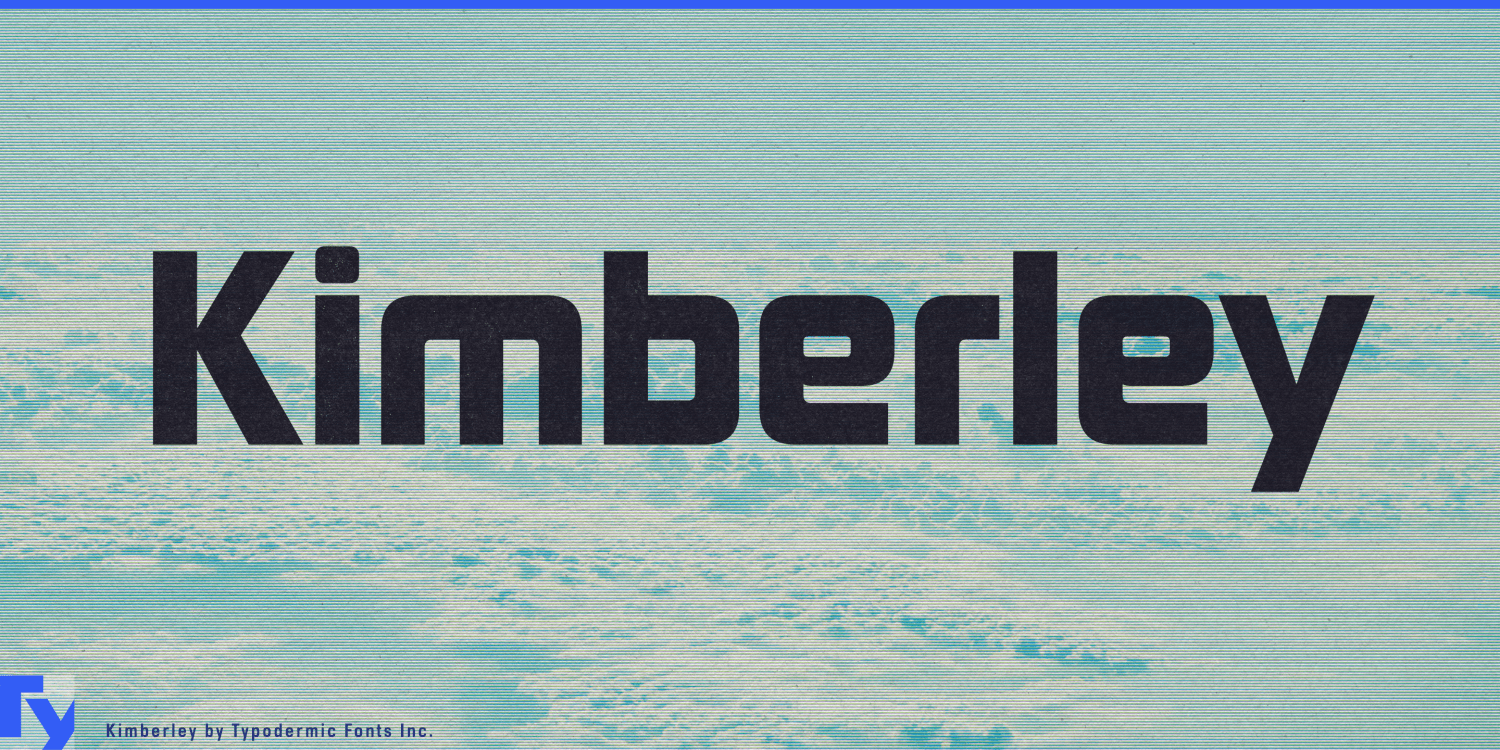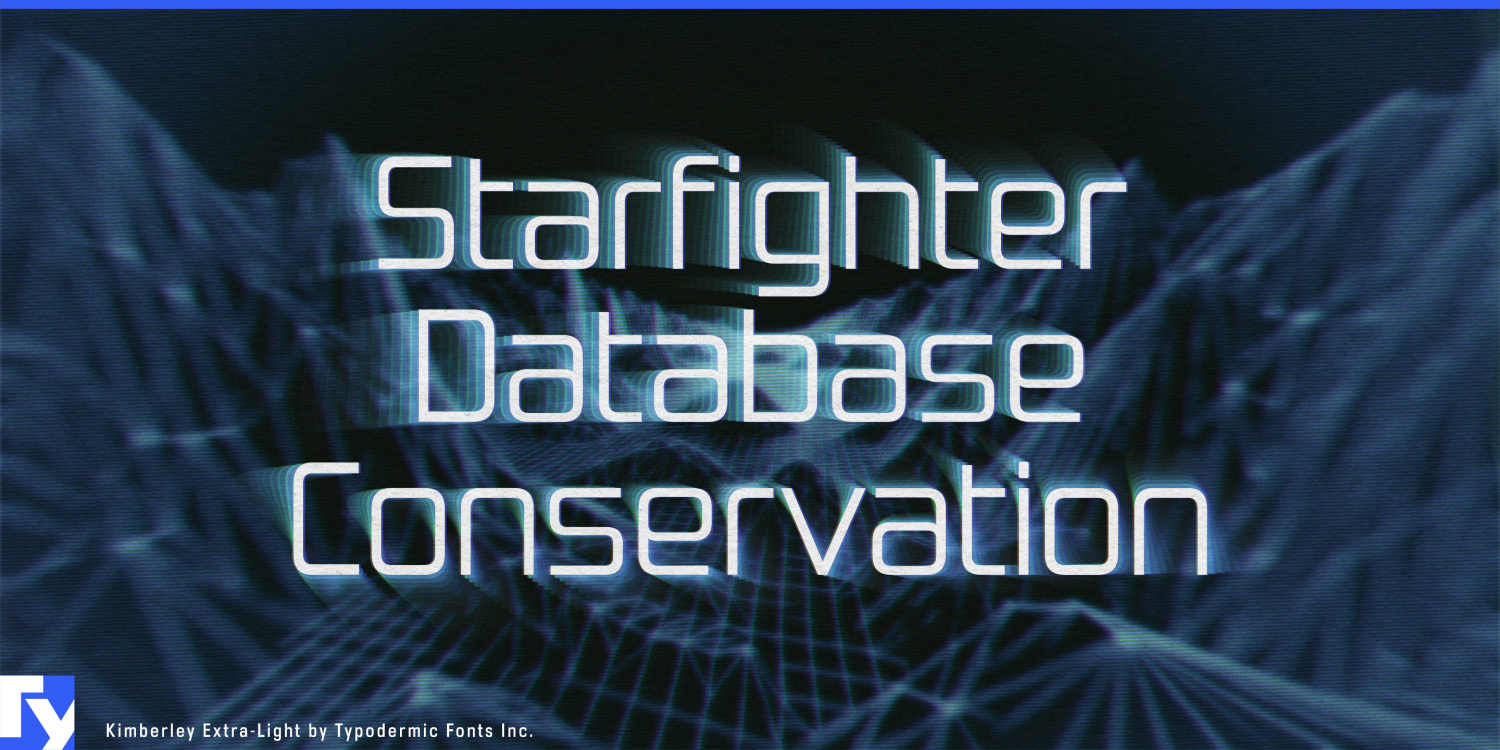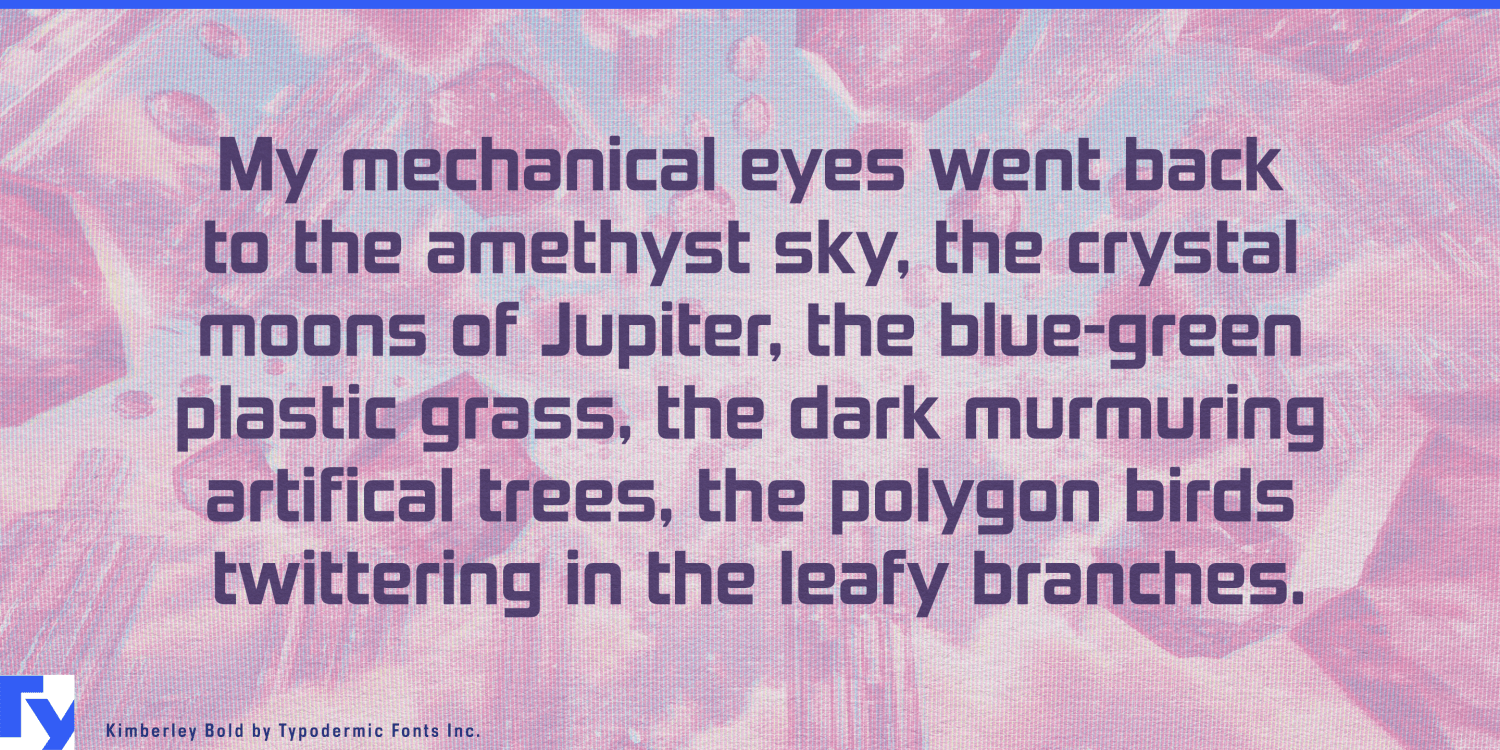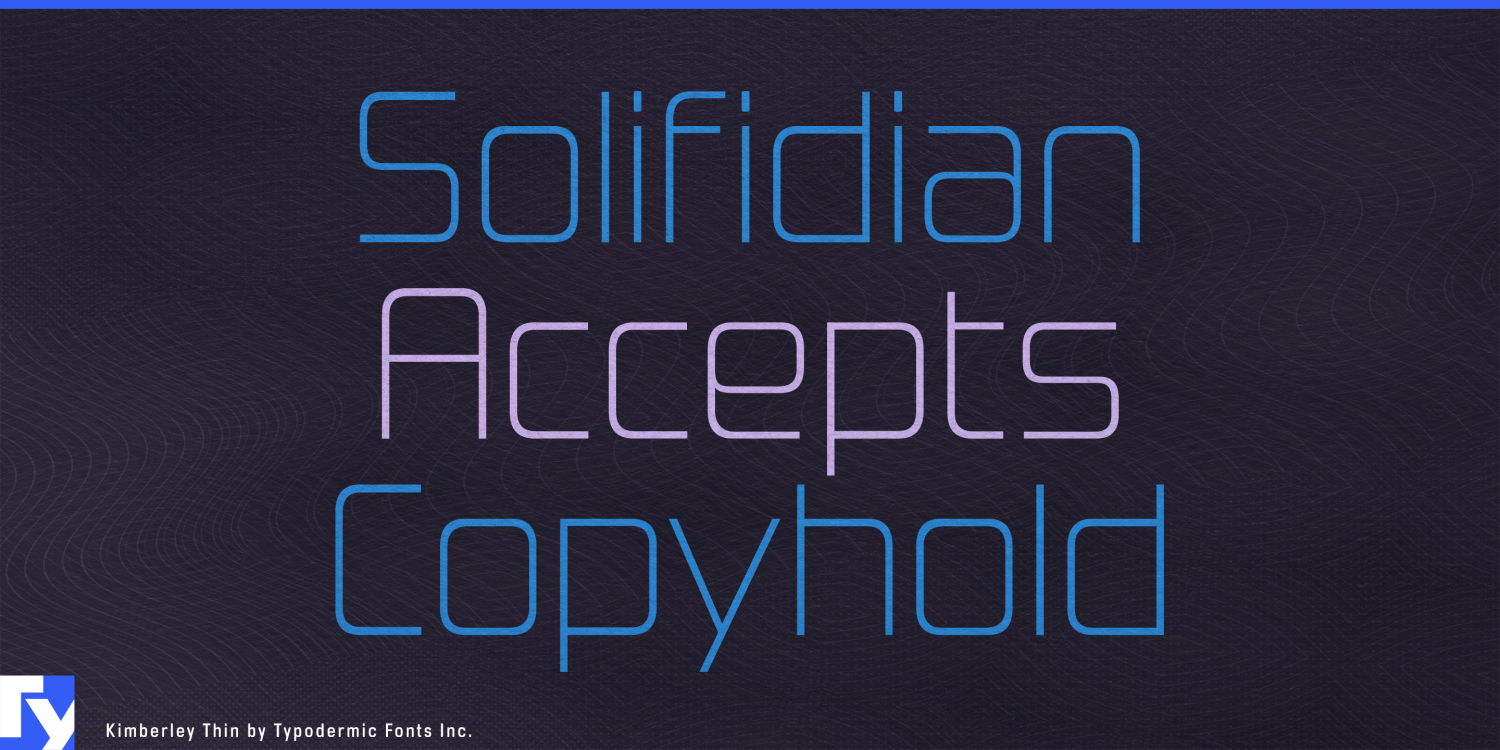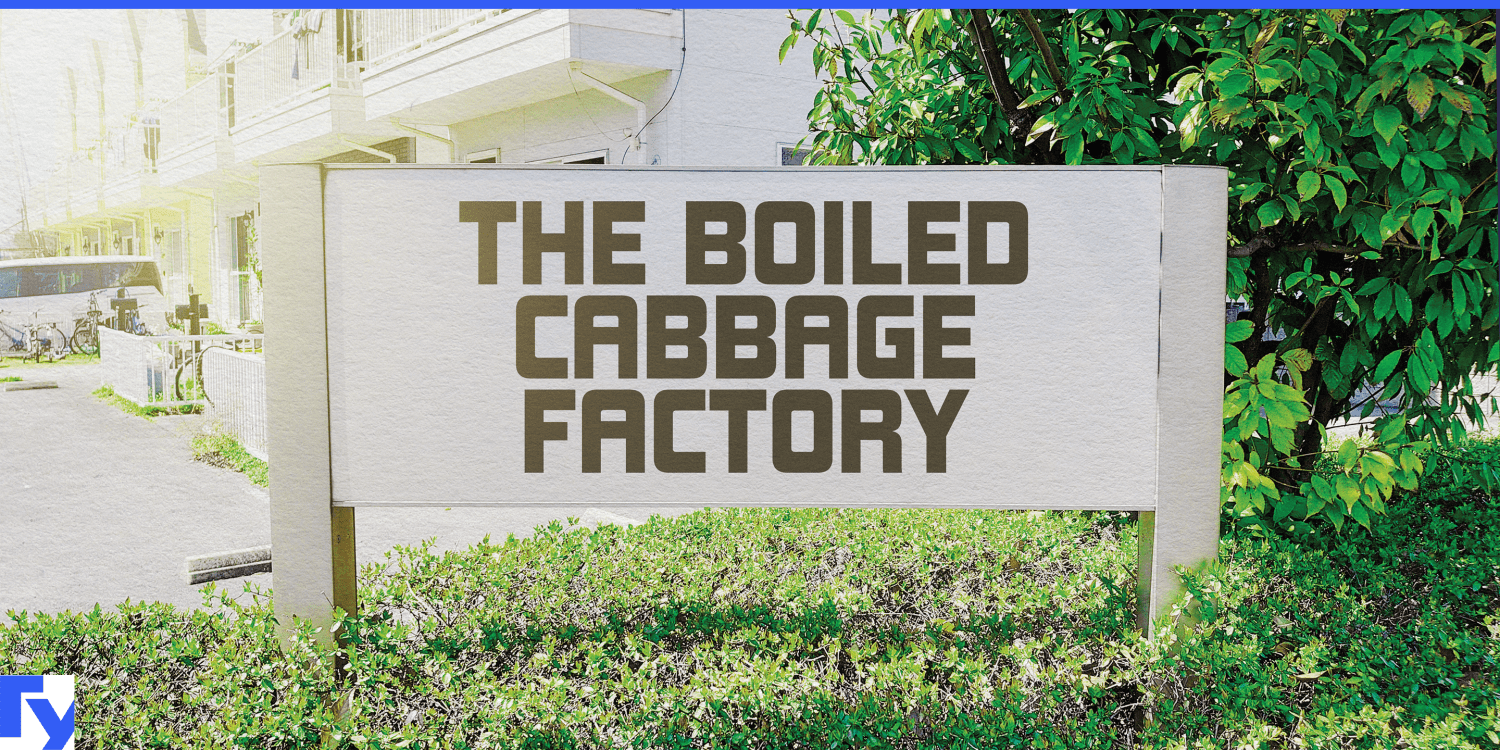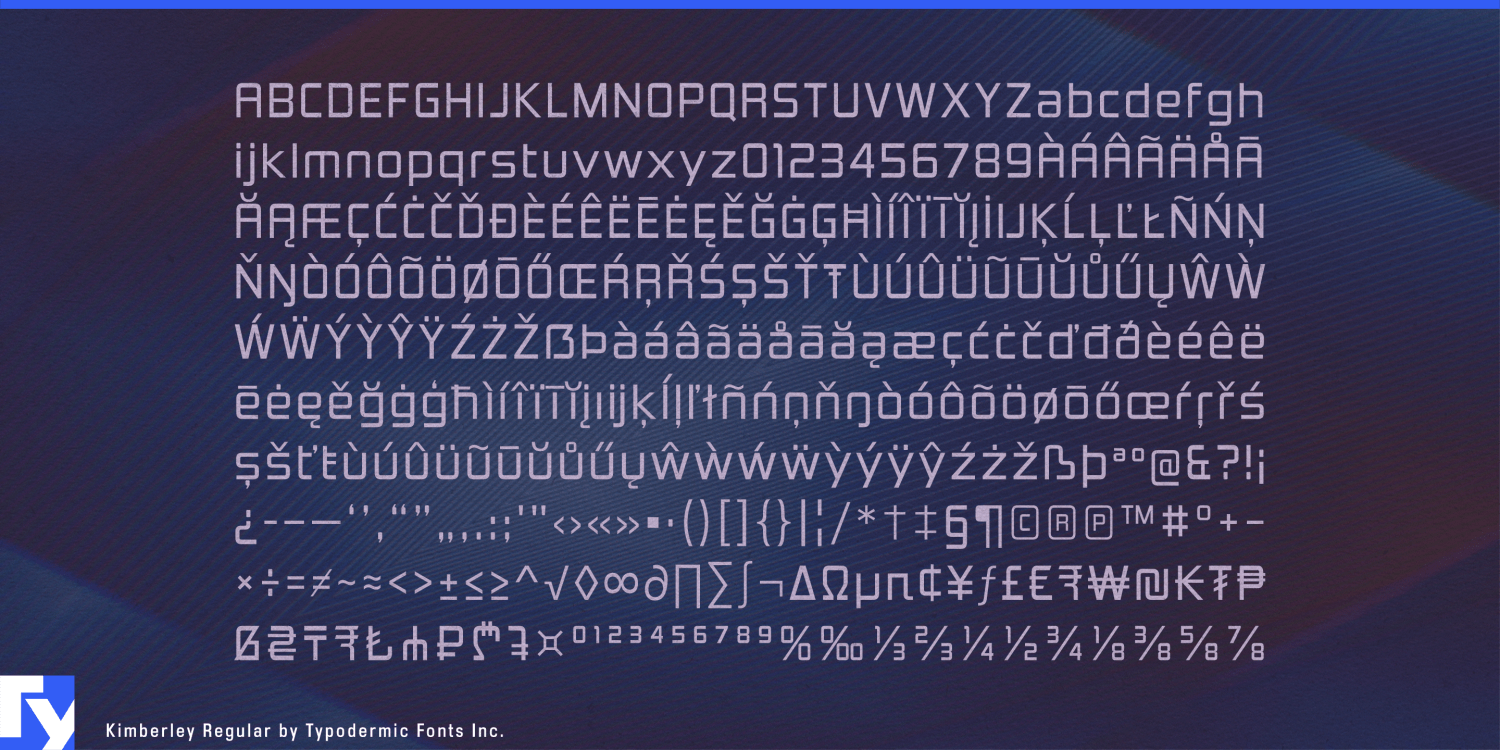
Kimberley
Future-facing engineering companies often face a typographic trap: technical lettering can quickly turn into gaming, cyberpunk, or generic software branding. Kimberley takes another route. Its squared construction draws on the visual language of 1970s corporate and industrial identity, with compact proportions and softened corners that give the geometry an engineered rather than theatrical character.
That makes Kimberley particularly useful for the industrial economy forming around electrification. Commercial charging systems, battery storage, power conversion, microgrids, heat pumps, fleet electrification, and grid-control equipment all need identities that can look advanced without appearing speculative. Kimberley has the weight for manufacturer names on charging cabinets and battery enclosures, while lighter styles can handle product families, model designations, technical brochure headings, trade-show graphics, and short supporting copy.
The same qualities suit robotics and industrial automation: machine-vision systems, autonomous warehouse equipment, CNC machinery, motion controls, sensors, inspection systems, and factory robotics. Heavy styles can establish a corporate mark or machine series; lighter cuts extend the same visual language into subsystem names, specifications, diagrams, exhibition graphics, and technical sales material.
Kimberley also fits advanced transportation and industrial electronics, including commercial EVs, rail technology, airport ground equipment, aerospace components, ruggedized computers, control panels, test instruments, communications hardware, and power supplies. Its compact forms work especially well on equipment badges, faceplates, enclosures, fleet graphics, catalogues, and product launches.
For established manufacturers moving into connected equipment, automation, and energy management, Kimberley offers another advantage. A company known for pumps, refrigeration systems, electrical hardware, building controls, or workshop machinery can modernize its identity without suddenly looking like a software startup. The design retains enough late-twentieth-century corporate-industrial character to suggest continuity while remaining at home on the machinery and infrastructure of the 2030s.
Kimberley can also serve as the outward-facing voice of industrial software such as digital-twin platforms, factory analytics, fleet-control systems, engineering applications, and infrastructure management. Paired with a quieter text face for dense data and controls, it supplies product names, dashboard headings, presentations, and campaign typography with the bearing of an equipment manufacturer rather than a game studio.